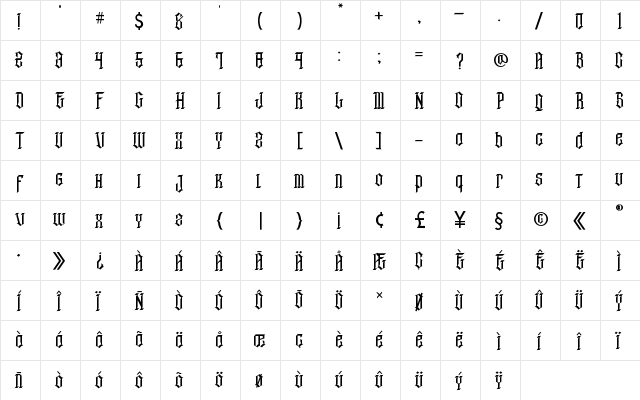
Arthur Regular
Design Context for Arthur Typeface
Arthur is a composed and adaptable typeface that performs quietly and consistently across a wide range of design contexts.